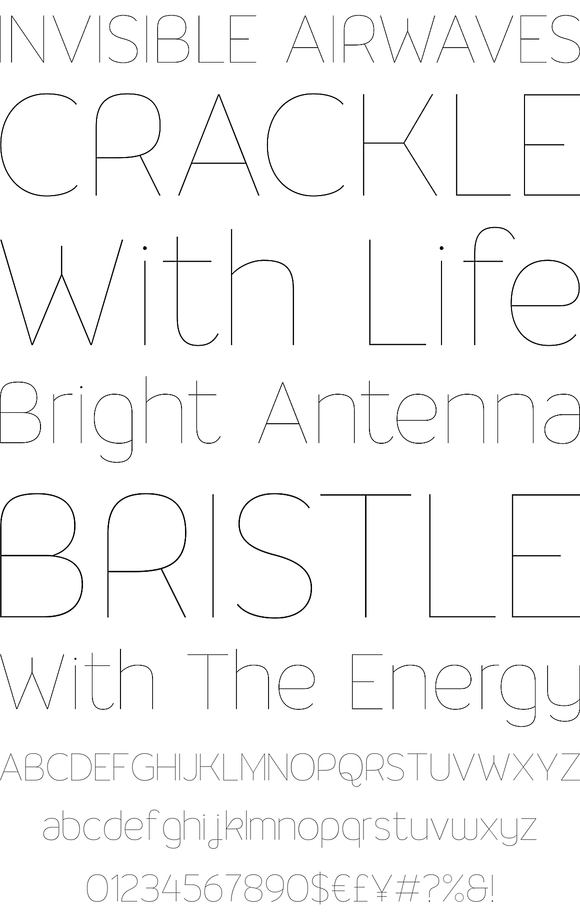
Malina Font
Malina is a sans-serif monoline typeface with some humanist touches creating a clear and legible typeface. The Idea is to make hairline display font that elegant and perfect for use at large sizes, with a set of alternative characters such as K, Q and R for your design in any layout.